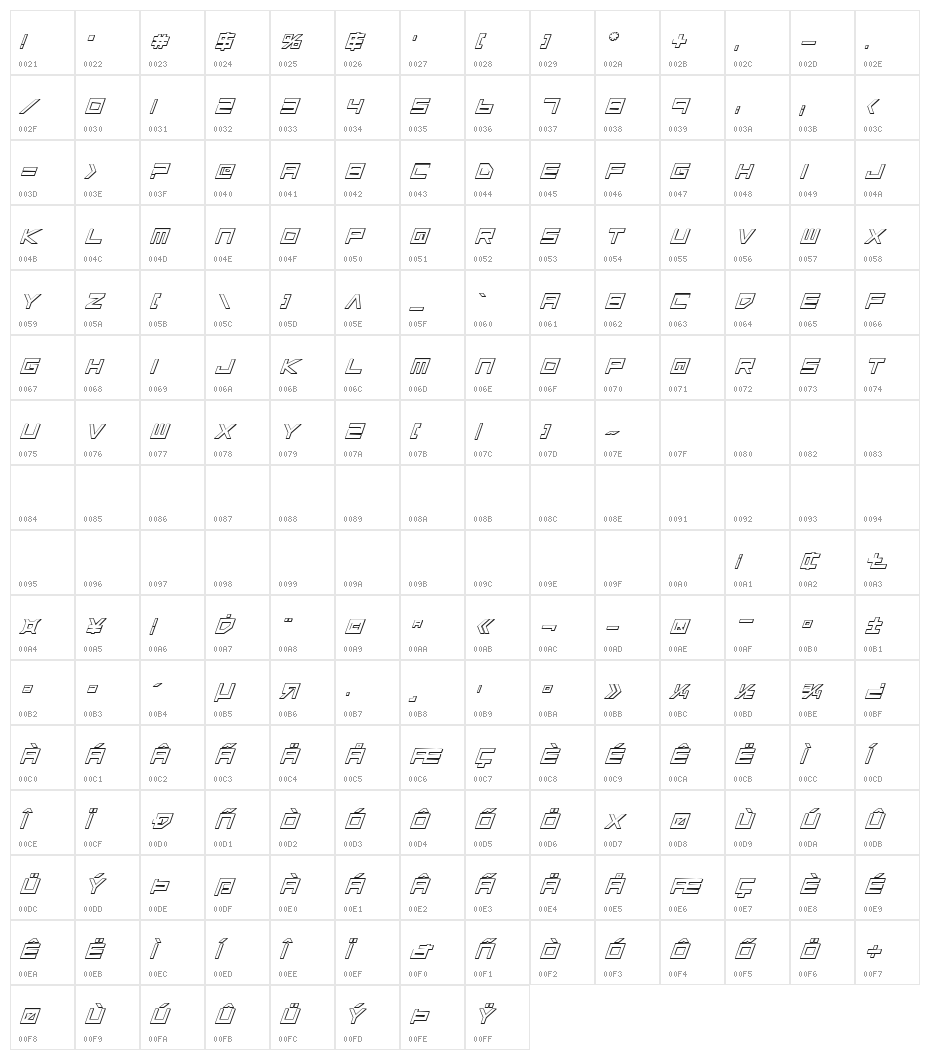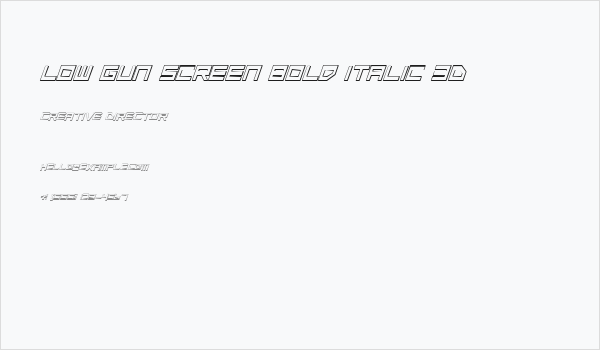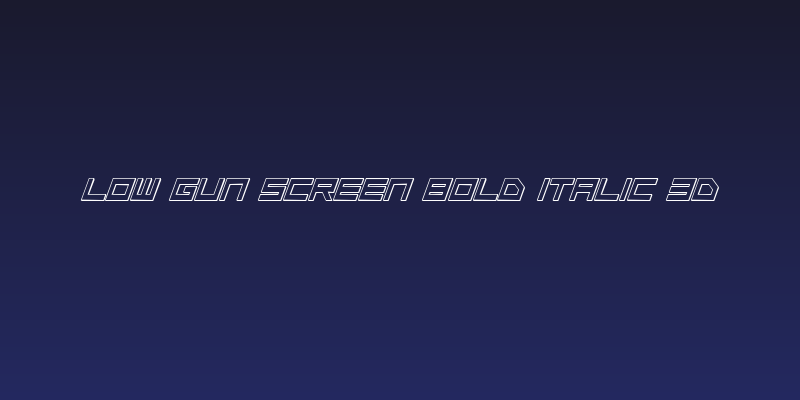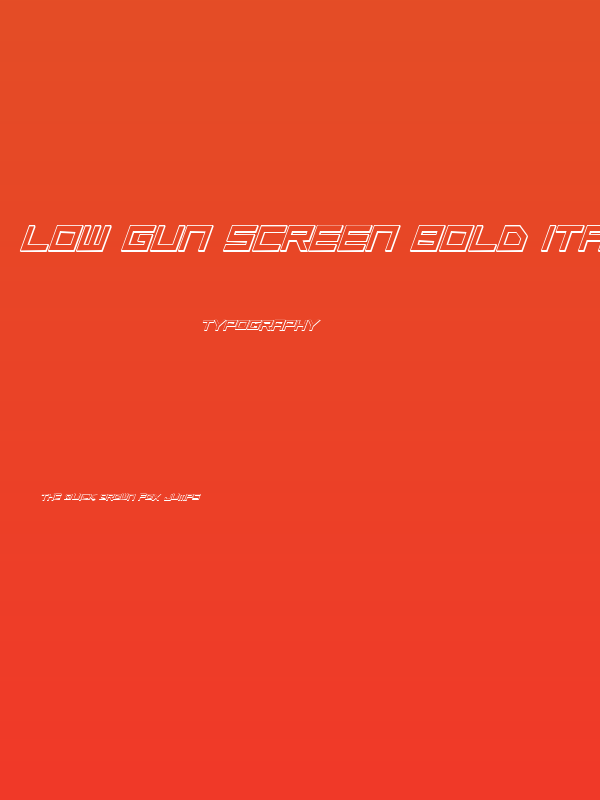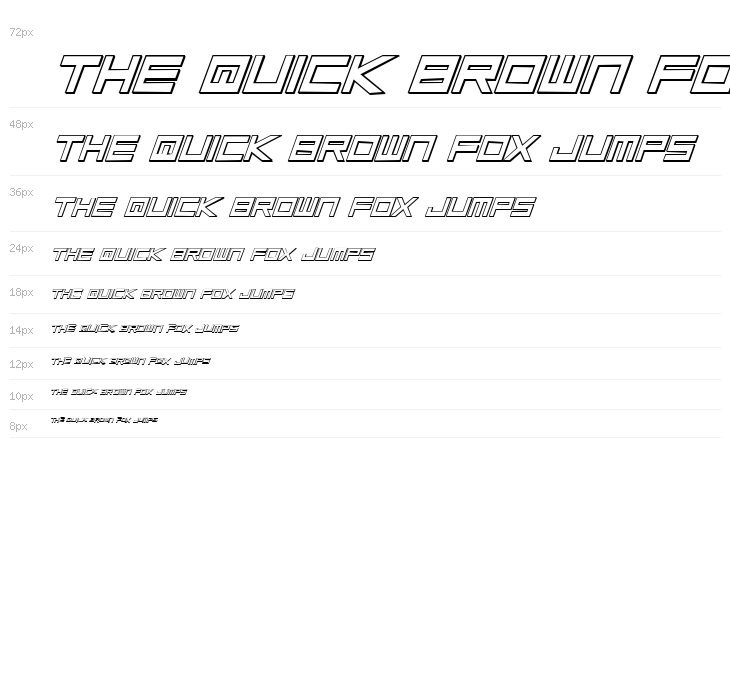
Low Gun Screen Bold Italic 3D Font
Low Gun Screen Bold Italic 3D Description
This font features a bold, italicized style with a distinct 3D effect, giving it a futuristic and dynamic appearance. The characters are outlined, creating a sense of depth and movement. The angular design of the letters adds a modern and edgy feel, making it suitable for attention-grabbing headlines or logos. The uppercase letters are consistent in their geometric style, while the numbers and special characters maintain the same bold and italicized characteristics, ensuring uniformity across all elements.
| Proposed Projects | Ideal for sci-fi themed projects, video game titles, tech company logos, or any design requiring a modern and dynamic look. |